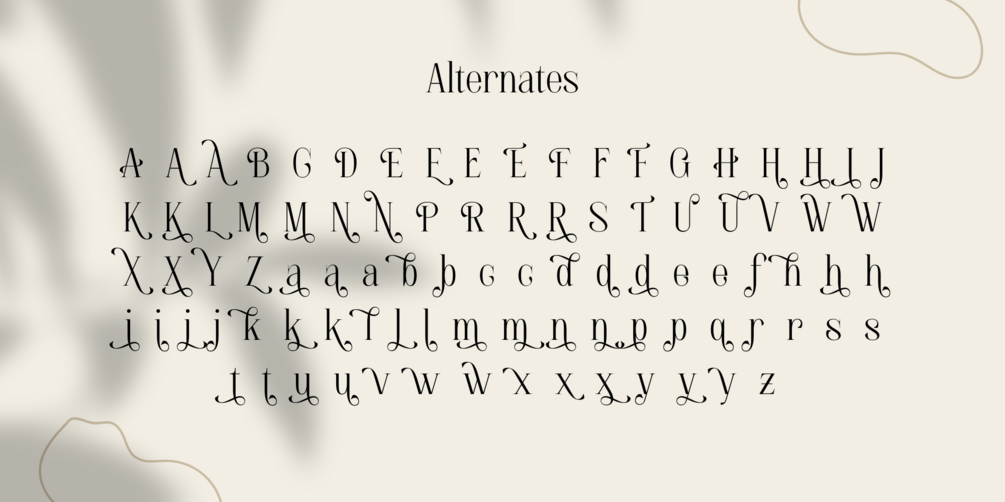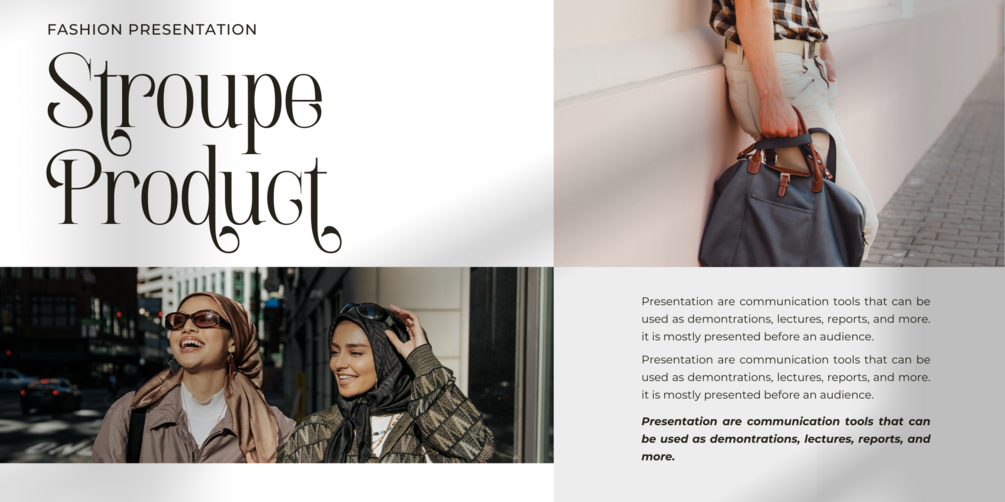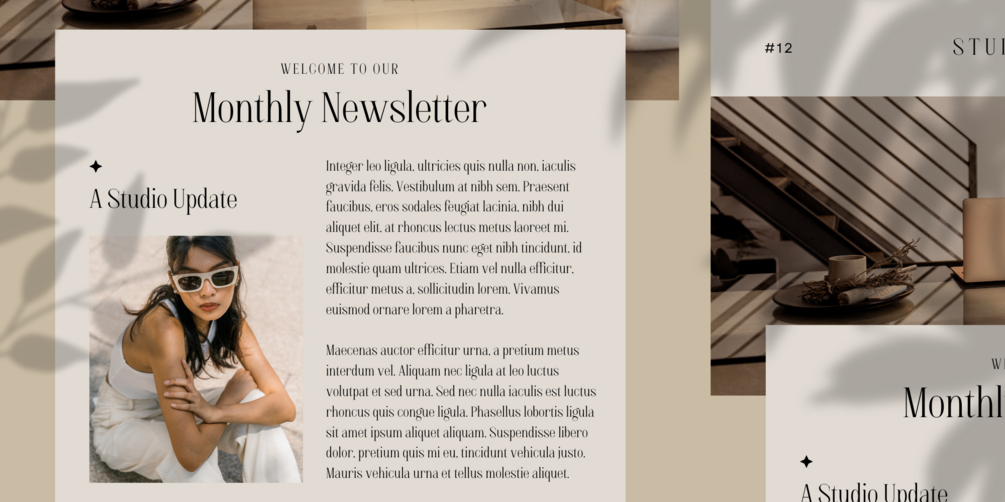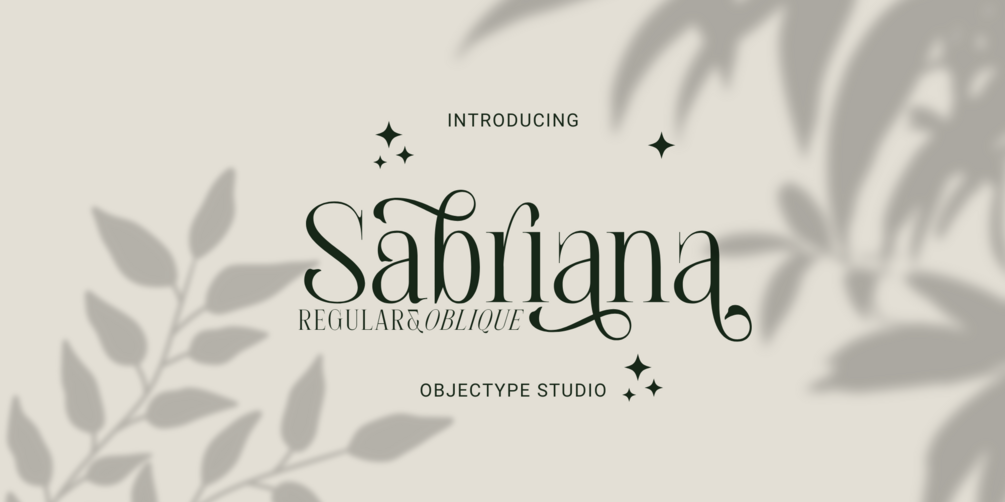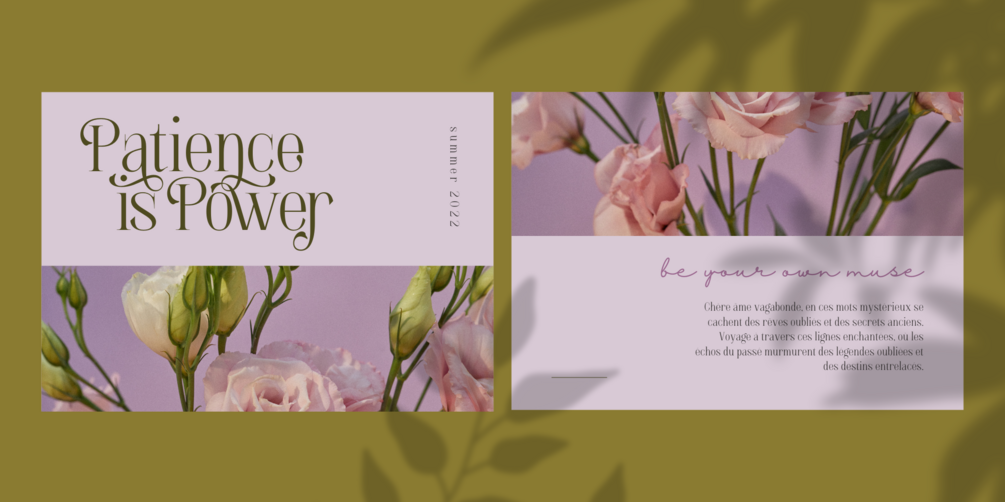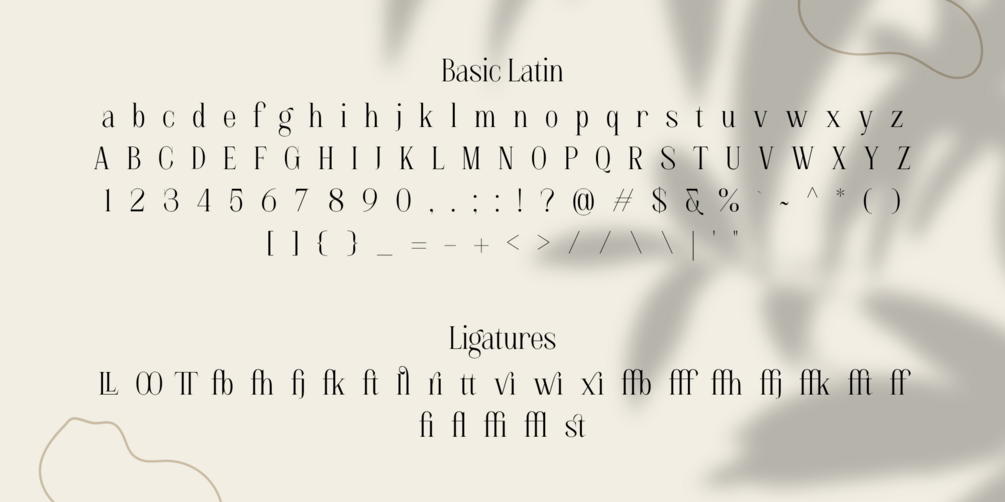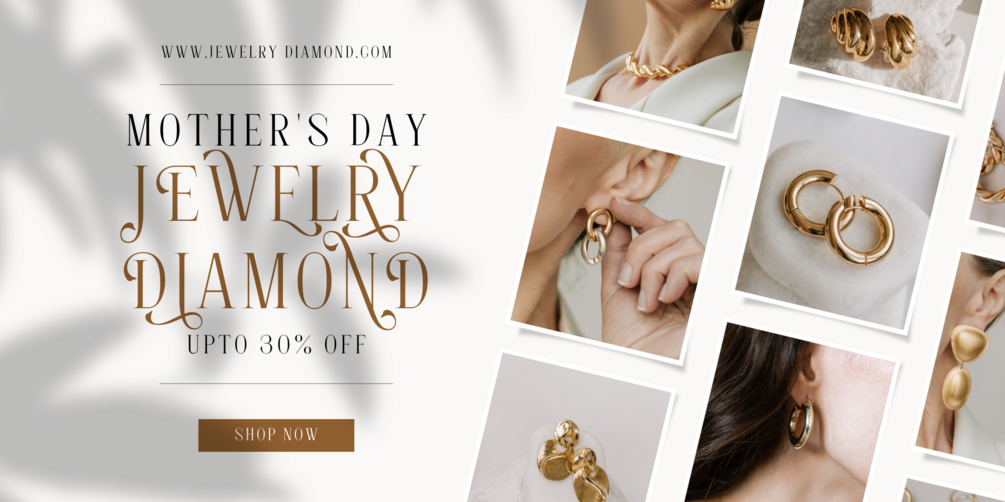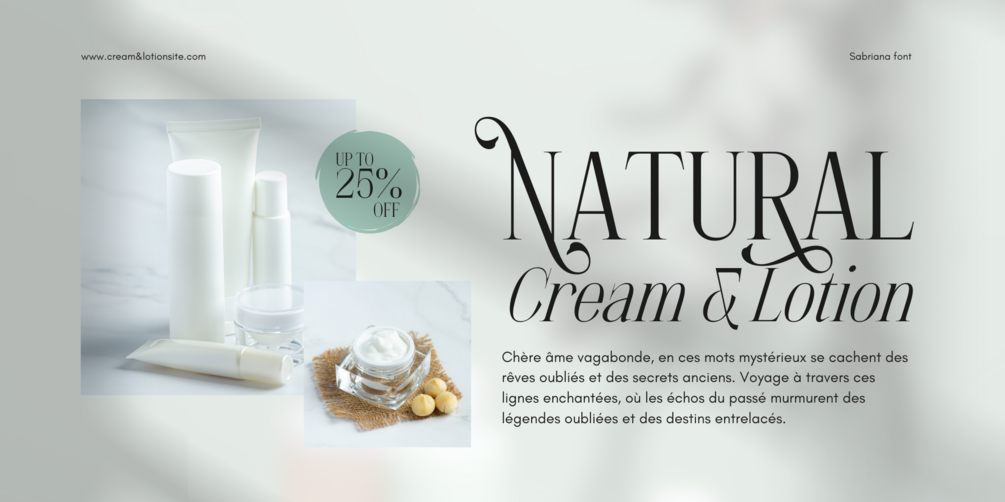
Sabriana: The Elegant Serif Font for Creative Designs
About Sabriana Font Family
Font Sabriana is a serif font type that offers the following features:
• Upper and lowercase letters
• Numbers and punctuation
• Accented characters for the international designer
• Ligature Alternative
In addition to the mentioned features, Font Sabriana also excels in clarity and readability. With its elegant serif design, this font adds a classic and modern touch to any text. The variety of accented characters and alternative ligatures enrich the possibilities of letter combinations, creating unique and appealing typographic designs.
Font Sabriana is suitable for various design projects, ranging from logo design, and posters, to editorial design such as books or magazines. With the aesthetic beauty of serif fonts and modern features, Font Sabriana is the ideal choice for designers prioritizing quality and creativity.